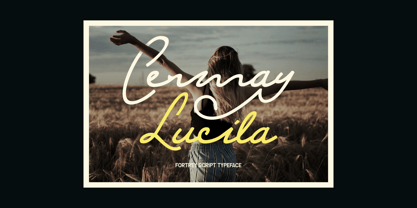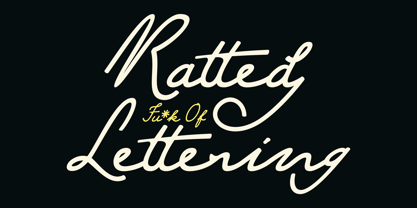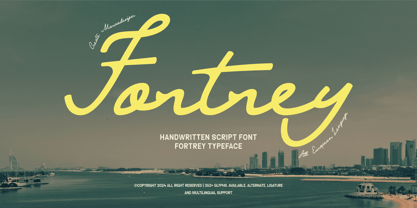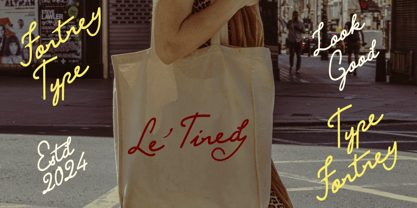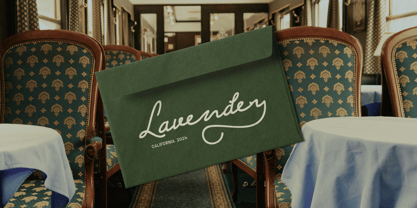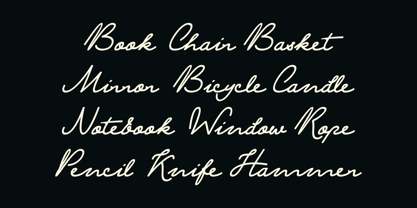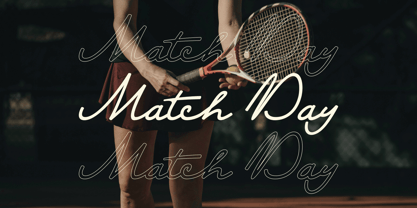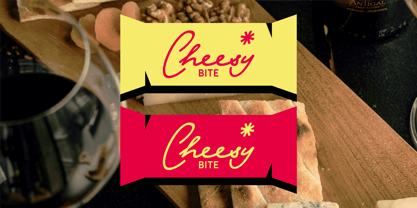
Fortrey
by Marvadesign
The Fortrey Font Family was designed by Febrie Setiawan and published by Marvadesign. Fortrey contains 1 styles. More about this family
Introducing Fortrey is a timeless Classic Script Handwritten font that embodies elegance and sophistication. Designed with a refined line style, its smooth, rounded contours evoke a sense of vintage charm, making it a perfect choice for projects that seek a blend of classic and modern aesthetics. The font offers a harmonious flow in its characters, enhanced by carefully crafted alternatives and ligatures that provide versatility and creative flexibility. Whether used for branding, invitations, or editorial designs, Fortrey delivers a touch of grace and nostalgia, ensuring your work stands out with its unique and distinguished appearance.
Designers: Febrie Setiawan
Foundry: Marvadesign